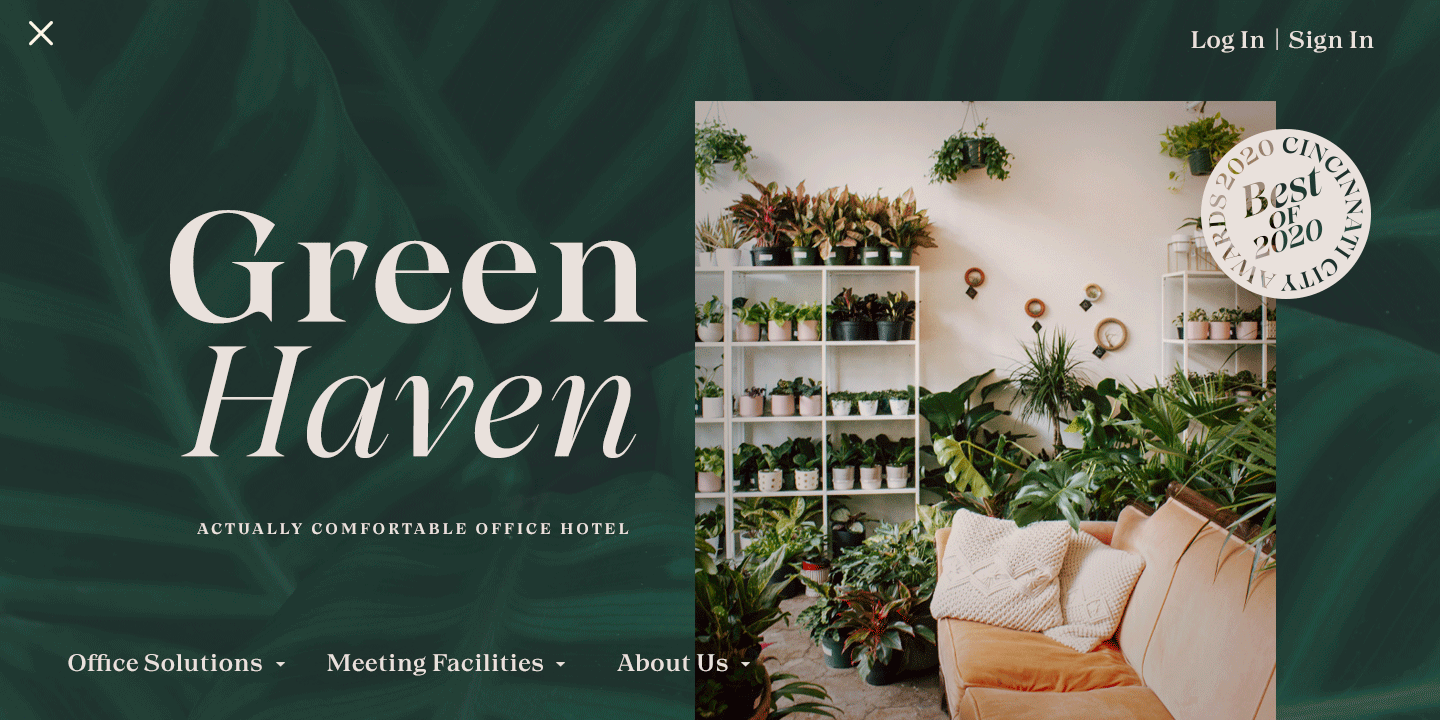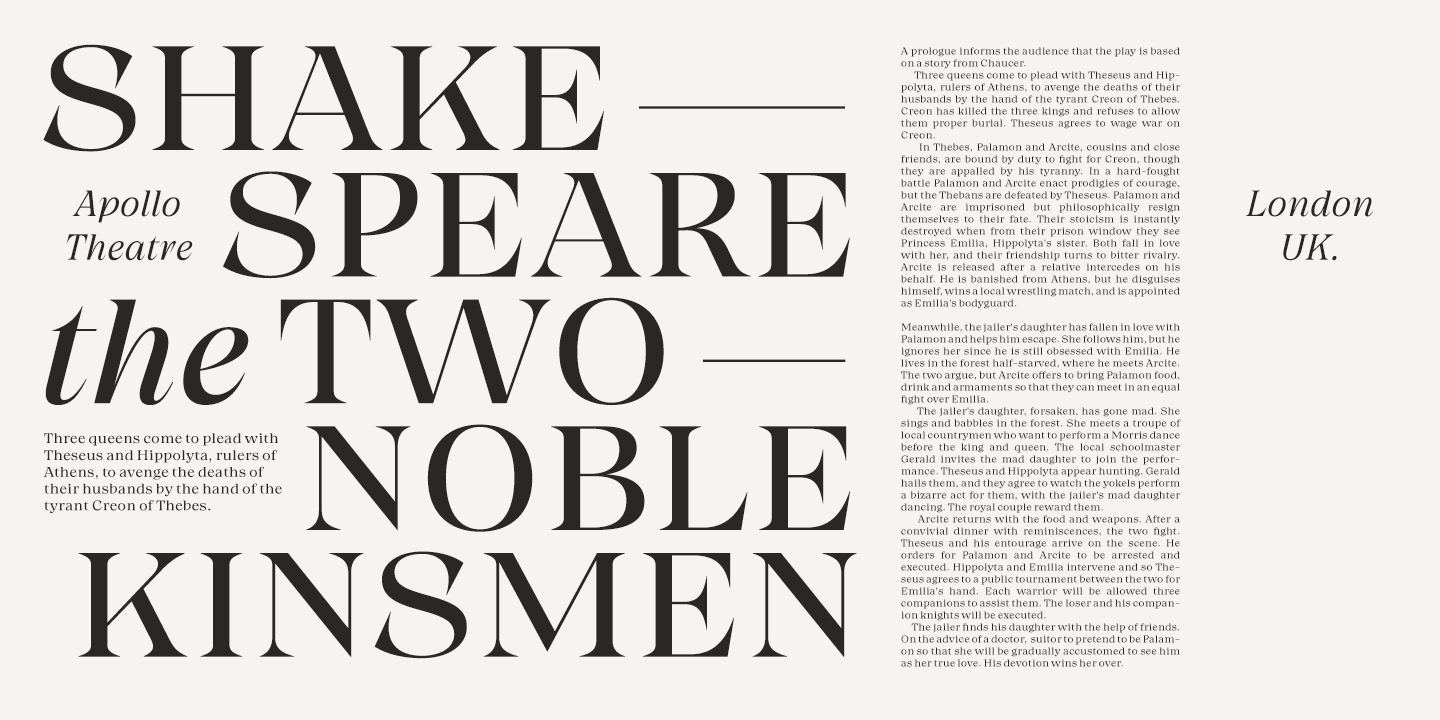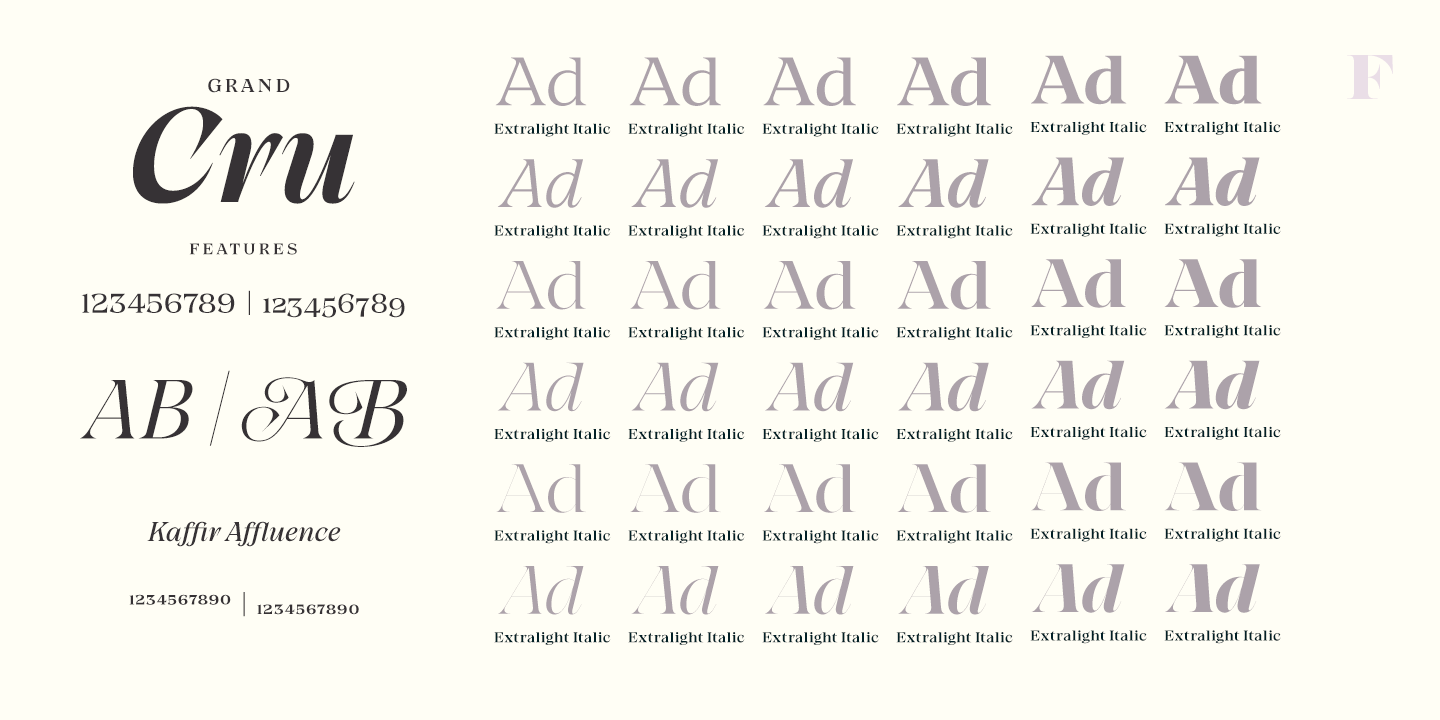
About Grand Cru
Meet Grand Cru ? a new approach to serif type. The type family is divided to three groups ? Small, Medium and Large ? according to the amount of contrast in letterforms. Forget about those old Text/Display categories ? it\’s up to you how to use your typeface.…